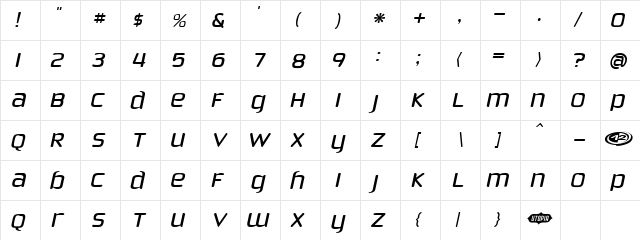
Phoenix Sans Italic
Design Context for Phoenix Sans Typeface
Phoenix Sans offers clean, dependable letterforms without strong stylistic allegiance, making it a practical choice for designers who need flexibility. The slanted form adds forward momentum and visual energy.
Pro Tip: Use Phoenix Sans for emphasis, pull quotes, and subheadings where its slanted energy can add rhythm to the layout.